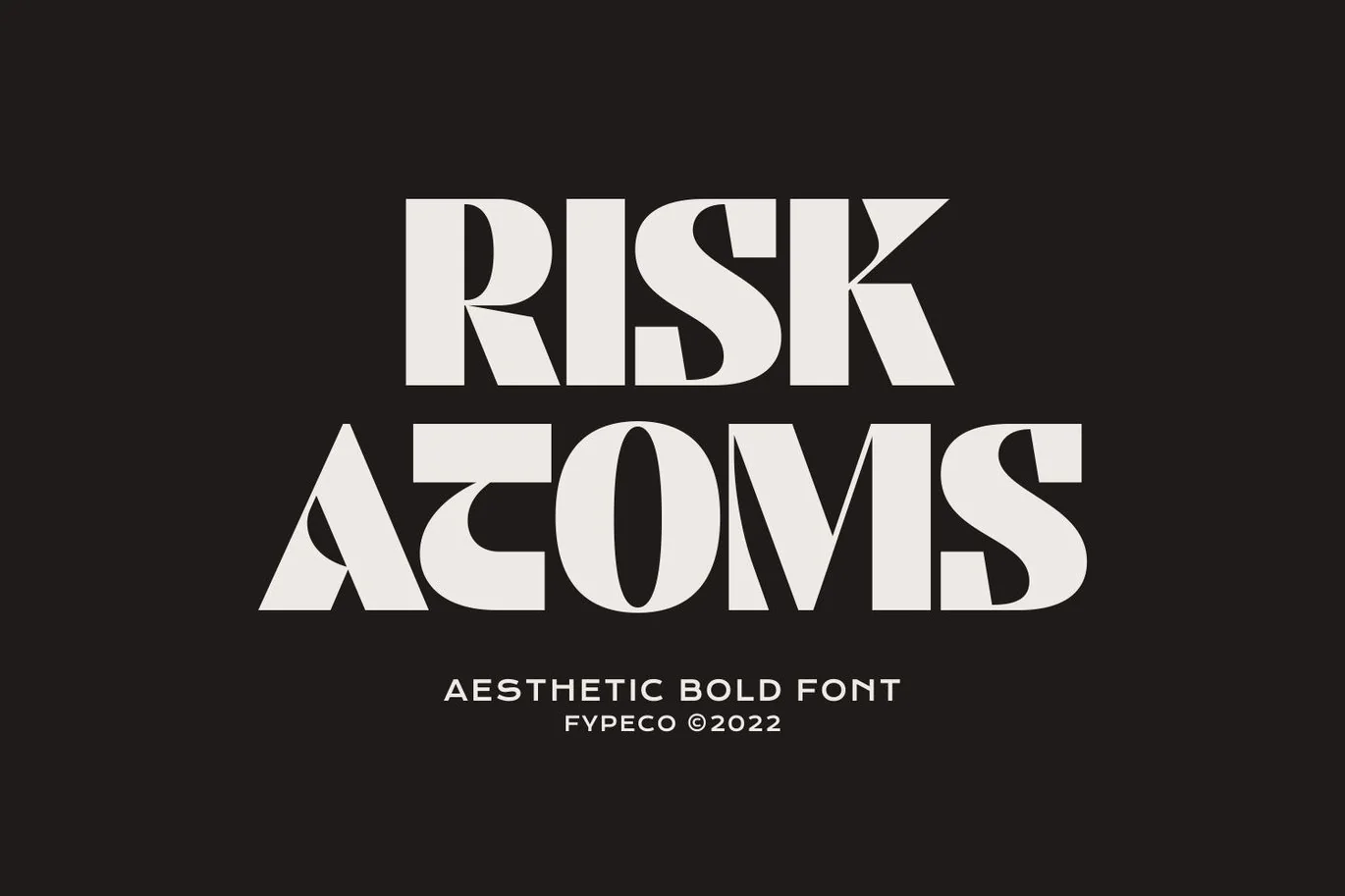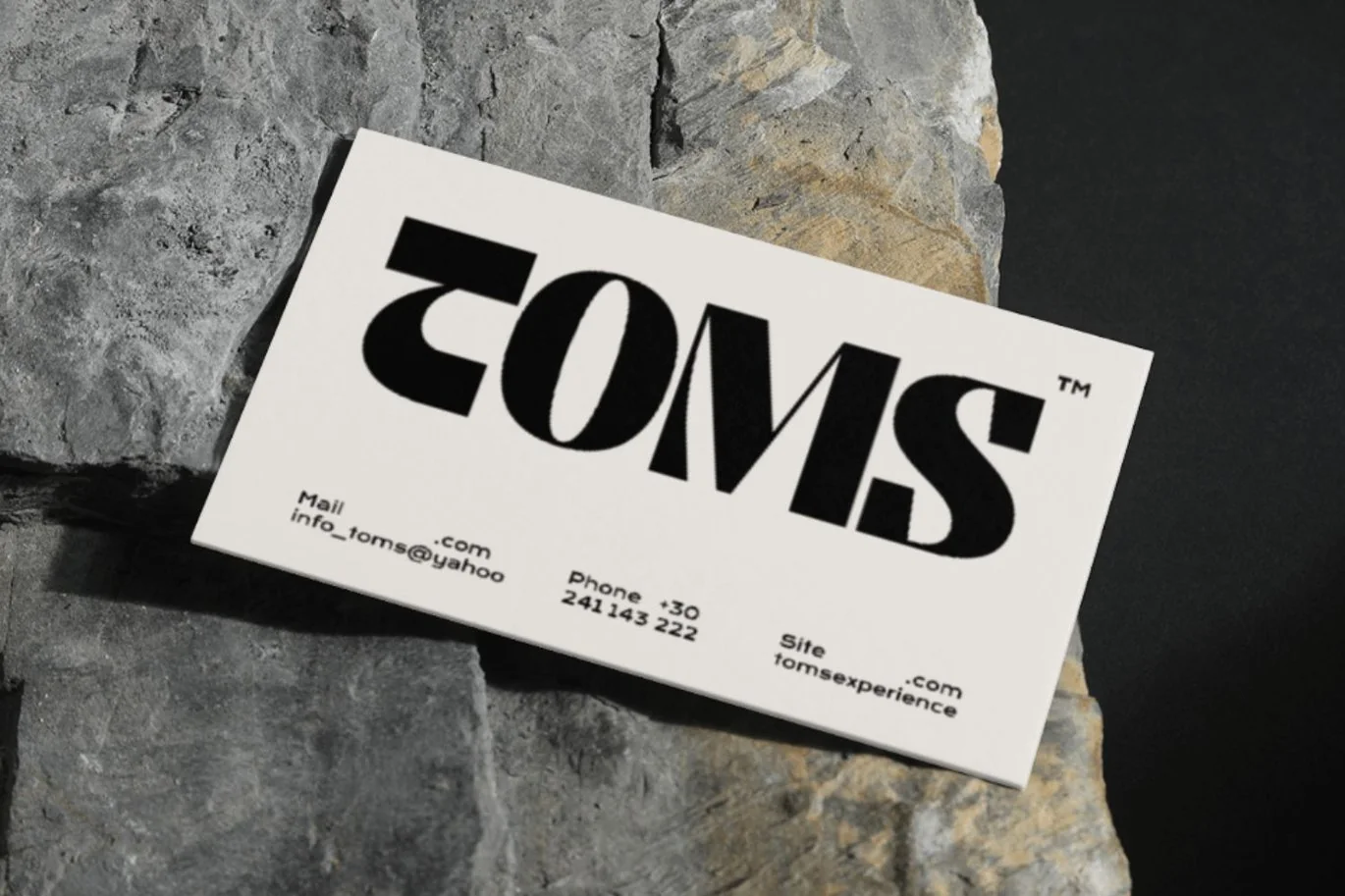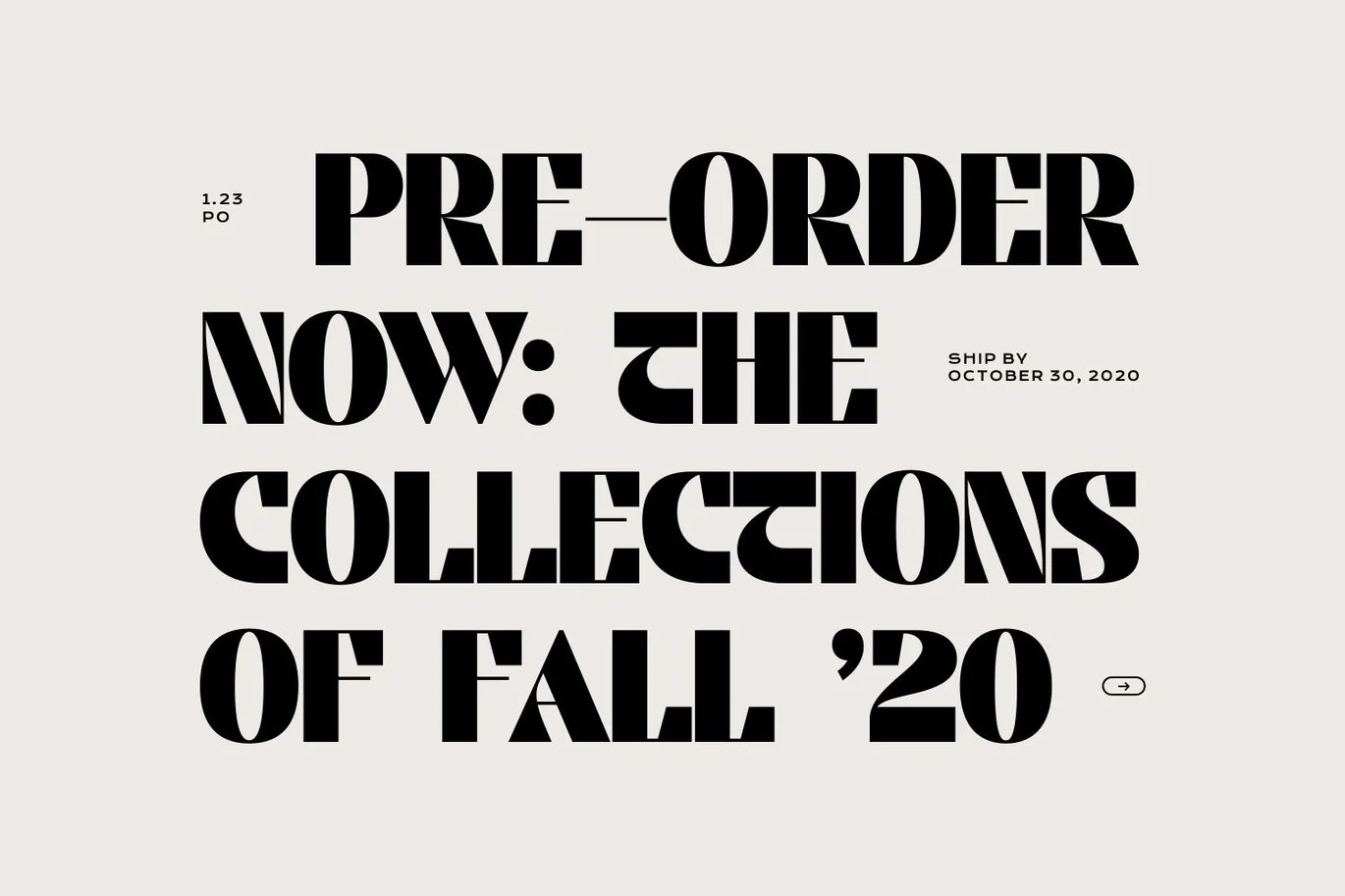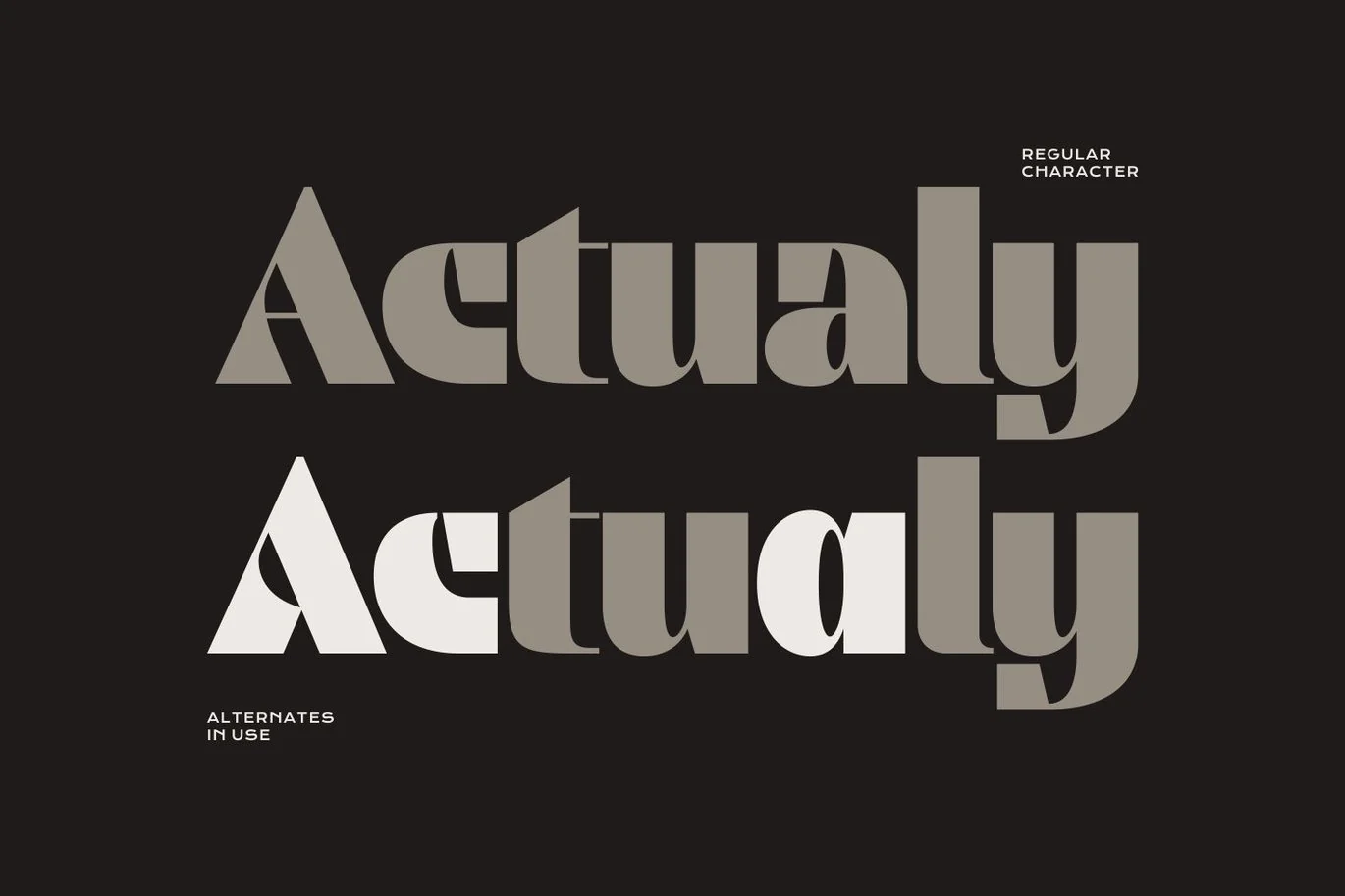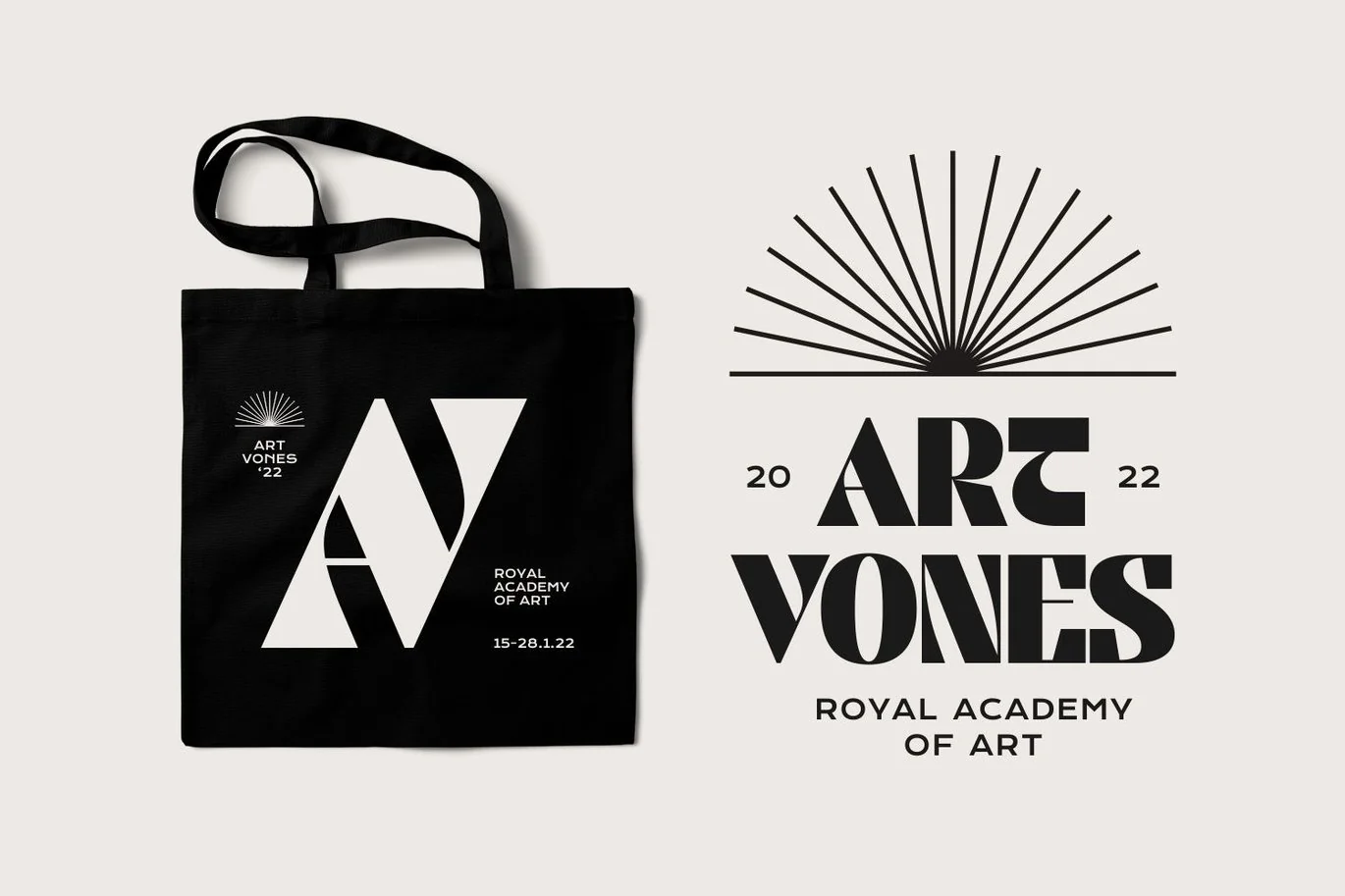
Risk Atoms – Aesthetic Bold Font
Risk Atoms is aesthetic bold font with alternatives. Its stylish and modern design give it a elegant and minimalist feel. Perfect for a stunning logos, quotes, Invitation, posts, blog posts. branding projects, magazine imagery, typography and much more.
Font Features
-Uppercase
-Lowercase
-Alternatives
-Ligatures
-Numerals & Punctuation
-Multilingual Support